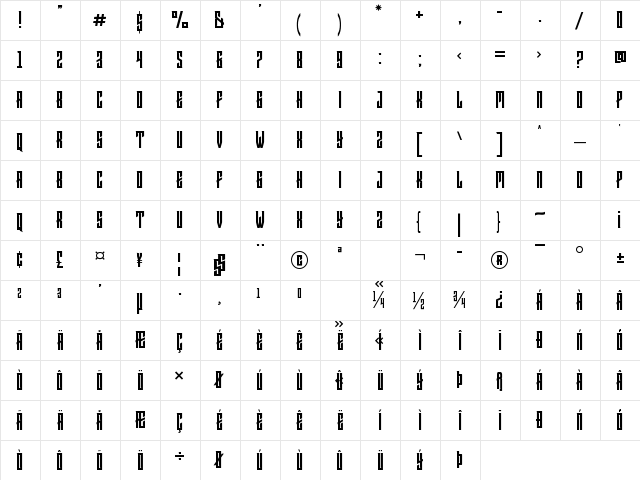
DEMARUS Regular Font Preview
DEMARUS Regular
DEMARUS Regular Font Details
Design Context for DEMARUS Typeface
DEMARUS is a composed and adaptable typeface that performs quietly and consistently across a wide range of design contexts.